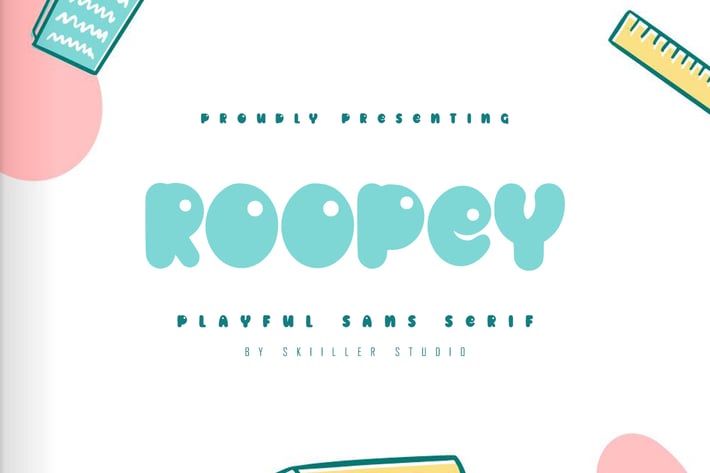
Roopey - Playful Sans Serif Font
Rooper is a modern and cool sans serif font. No matter the topic, this font will be an incredibly asset to your fonts’ library, as it has the potential to elevate any creation. Rooper is PUA encoded which means you can access all of the glyphs with ease!